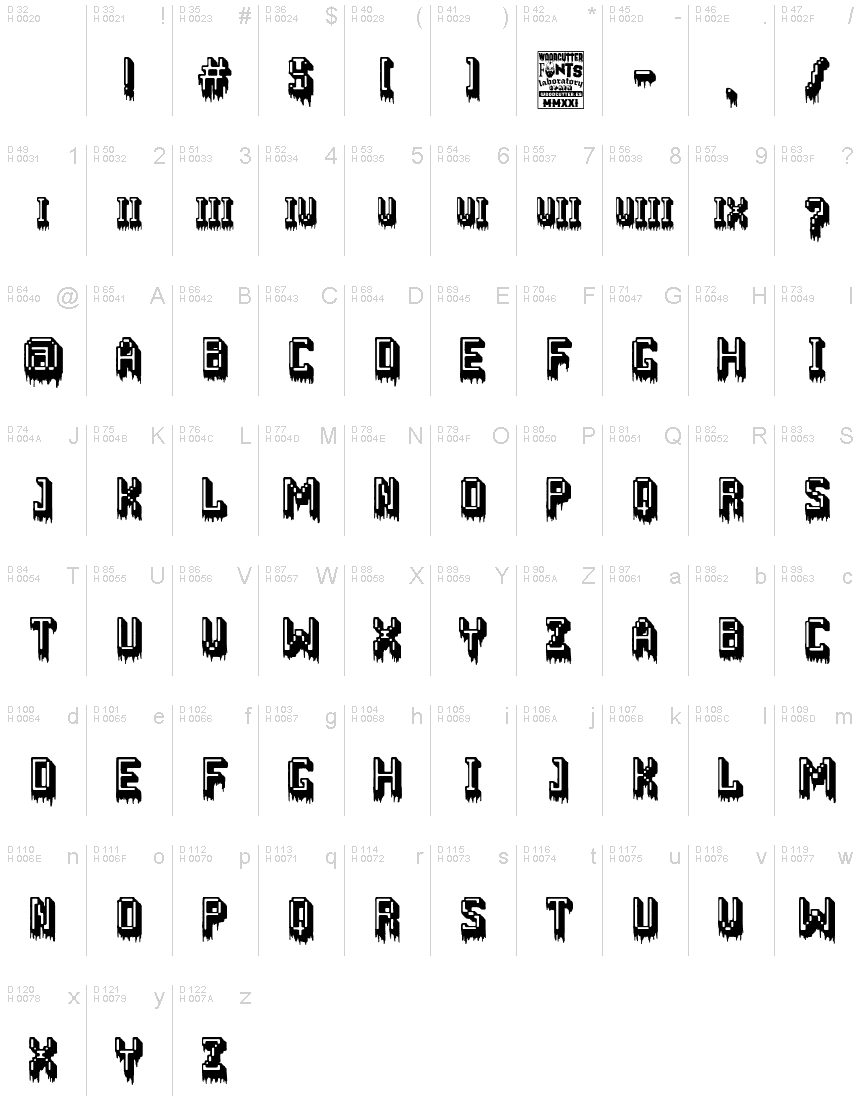
Fallo del Sistema
Fallo del Sistema, designed by Woodcutter, is a captivating display font perfect for projects that demand a unique and futuristic touch.
This 3D techno font boasts a semi-light weight that adds elegance to its digital and pixelated style. With its sleek lines and bold presence, Fallo del Sistema is an ideal choice for video game titles, technology websites, sci-fi posters, or any design that requires an edgy and modern look.